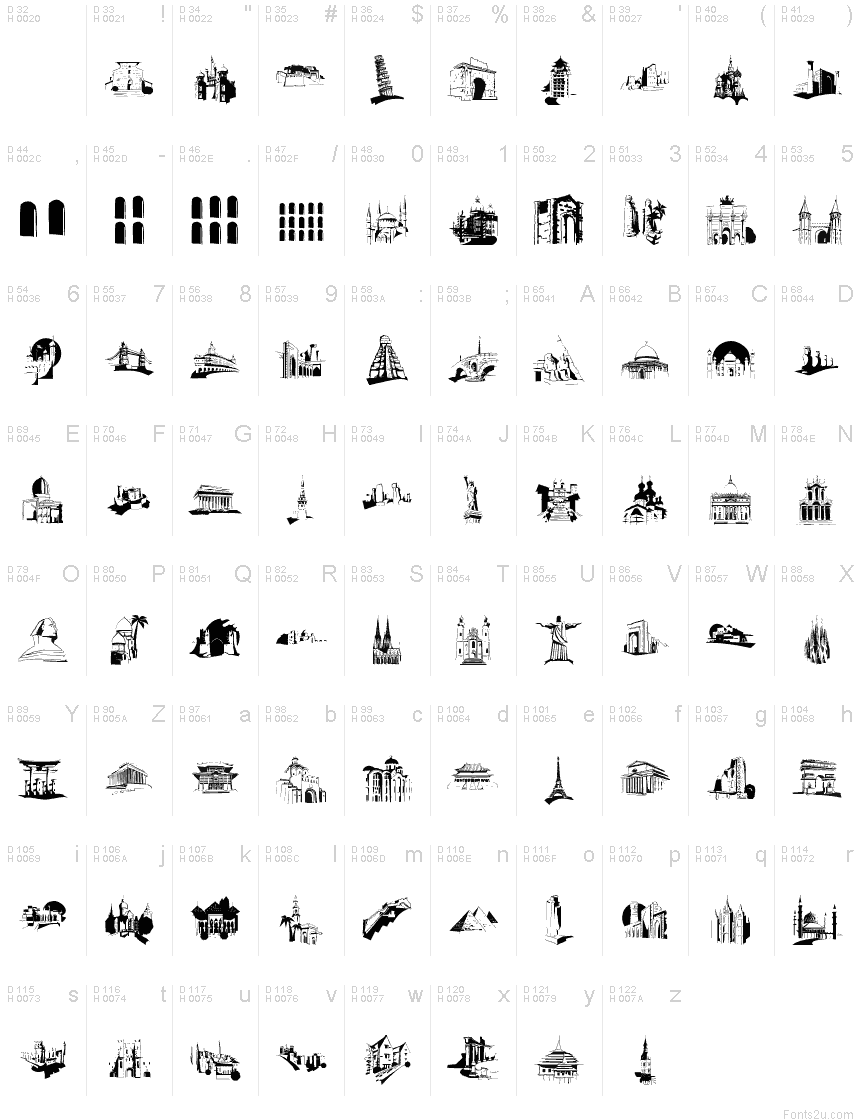
FamousBuildings
Famous Buildings font by Manfred Klein is a free architectural dingbat typeface that turns world landmarks into inky, black‑and‑white silhouettes. Each glyph feels like a hand‑inked sketch: bold shadows, crisp edges, and just enough detail to recognize temples, towers, and fortress walls without clutter. The icons sit solidly on the page, like tiny posters, making them easy to drop into layouts without extra tweaking.
Using Famous Buildings, you can give maps, travel guides, geography worksheets, tourism flyers, posters, and museum brochures a distinctive, illustrated flair in seconds. This free font also works beautifully in infographics and city‑themed branding where you need quick visual anchors. Try pairing the icons with a clean geometric sans serif and keep text smaller so the landmarks remain the visual heroes.